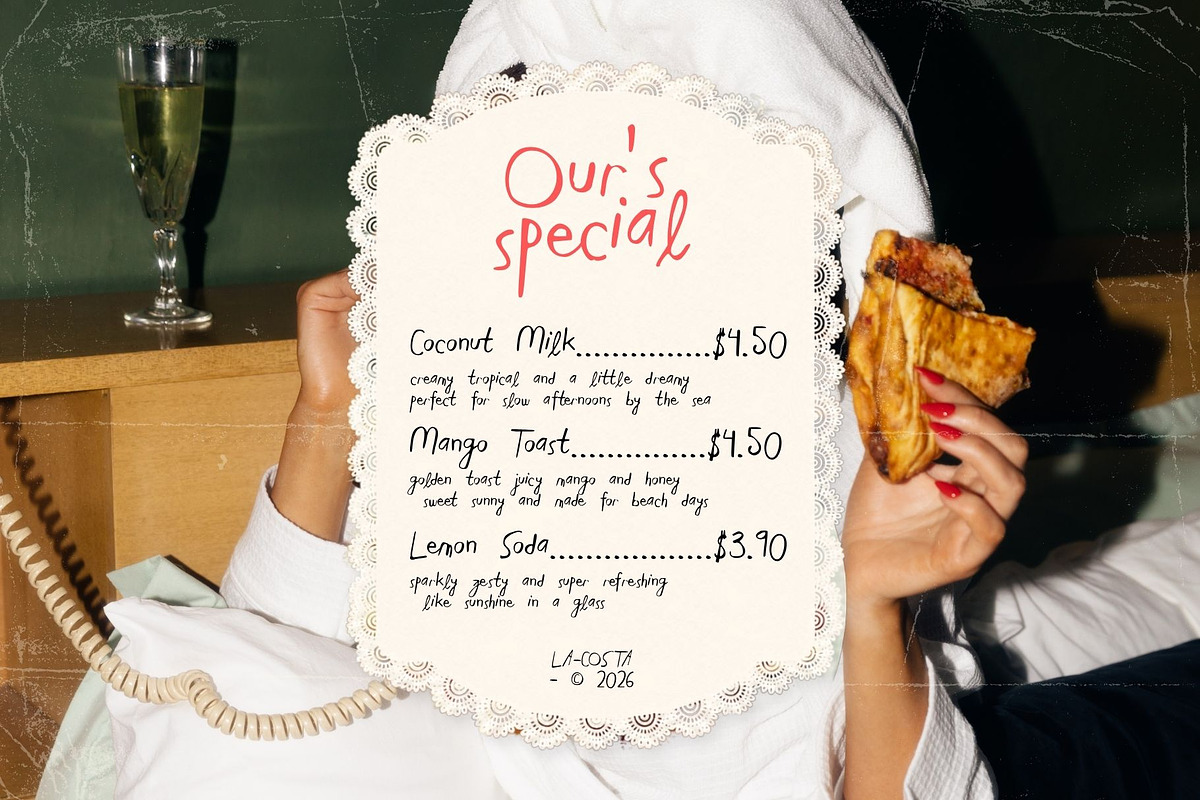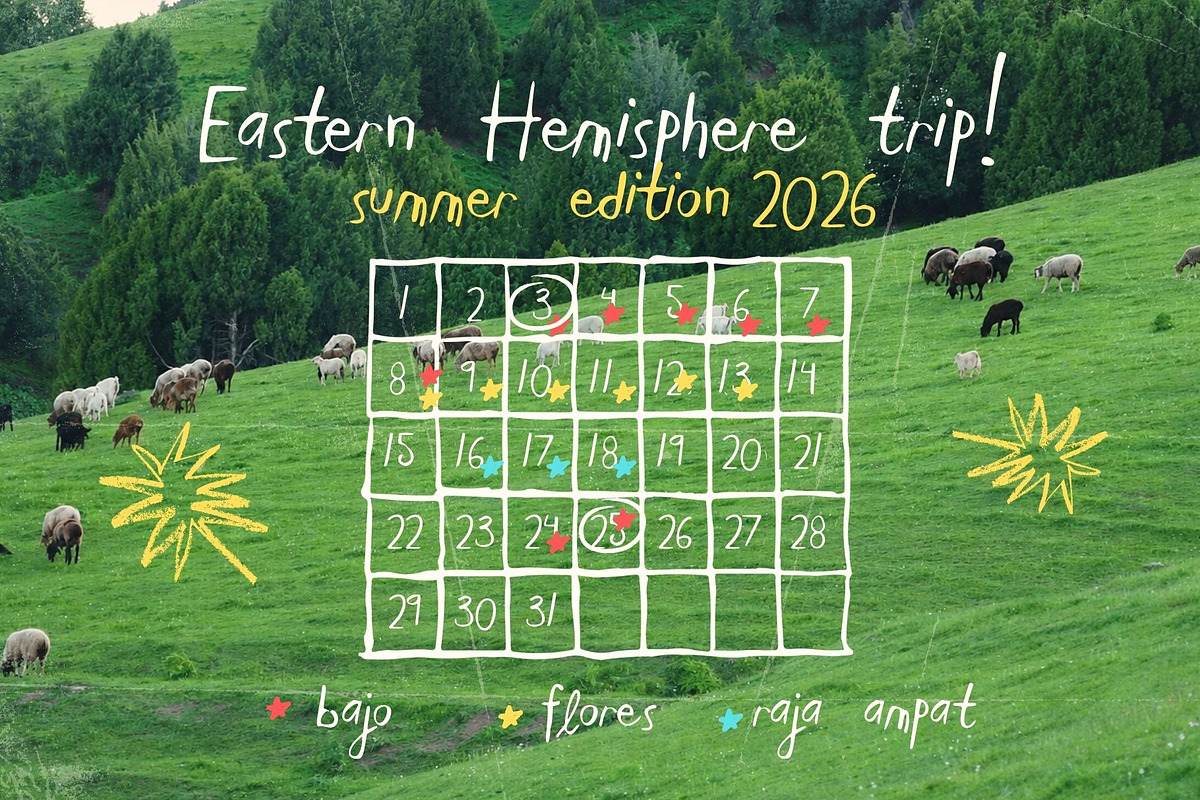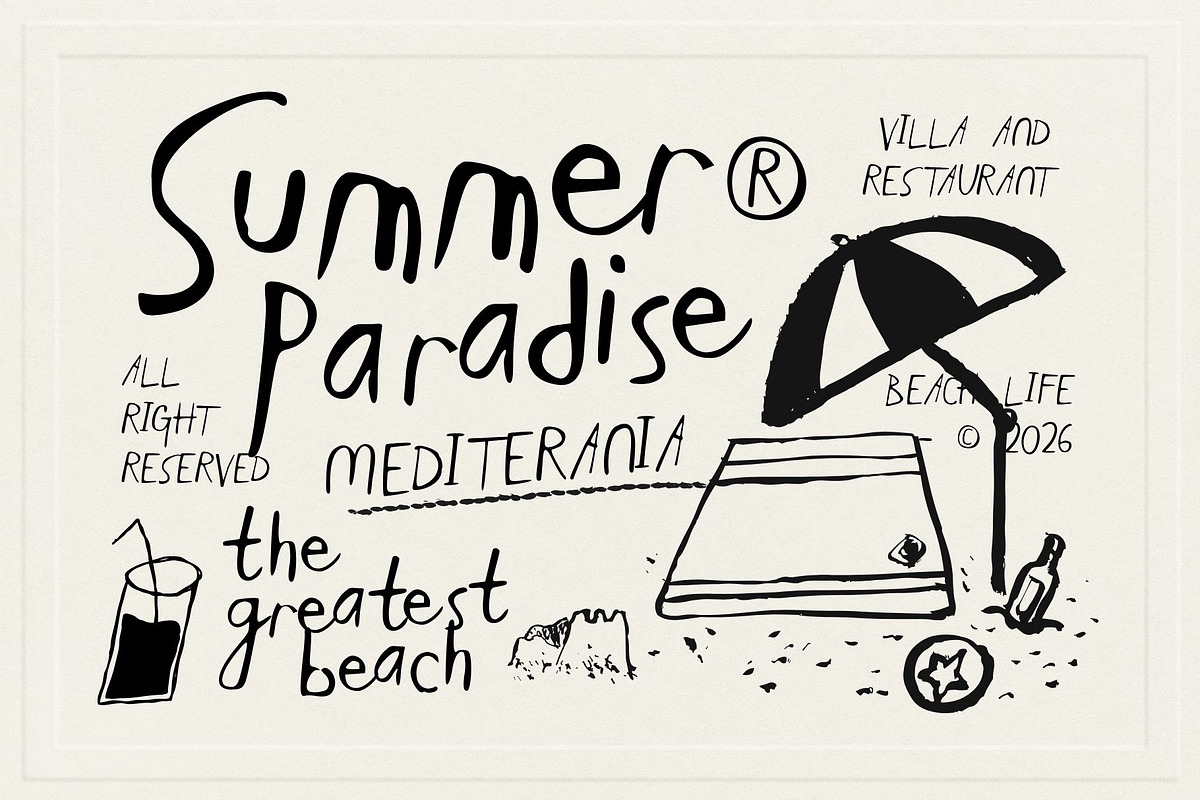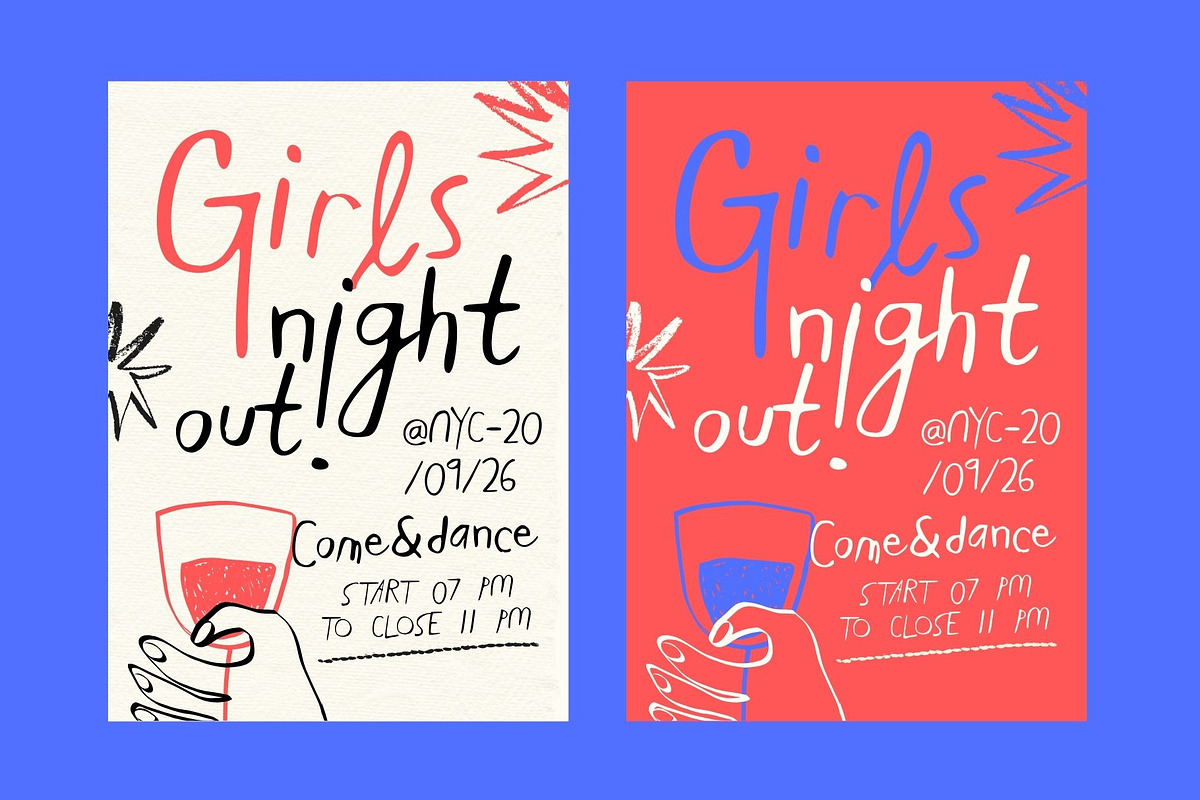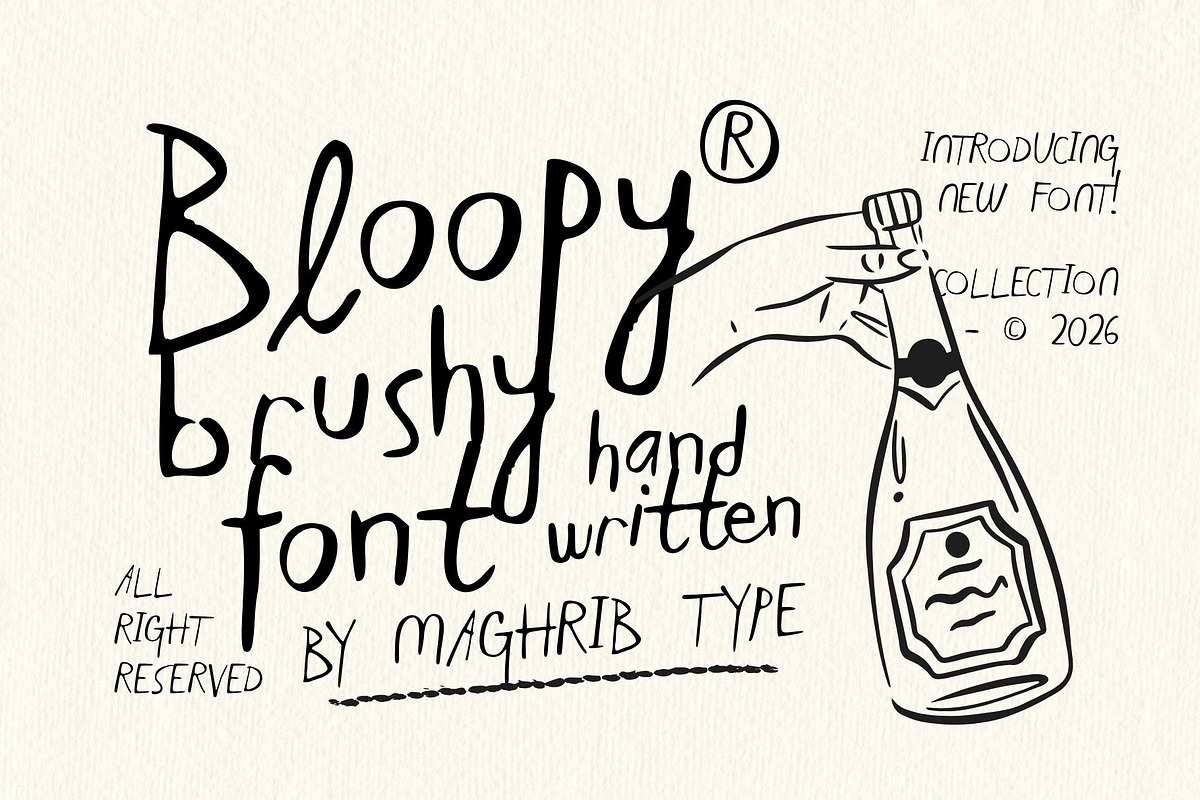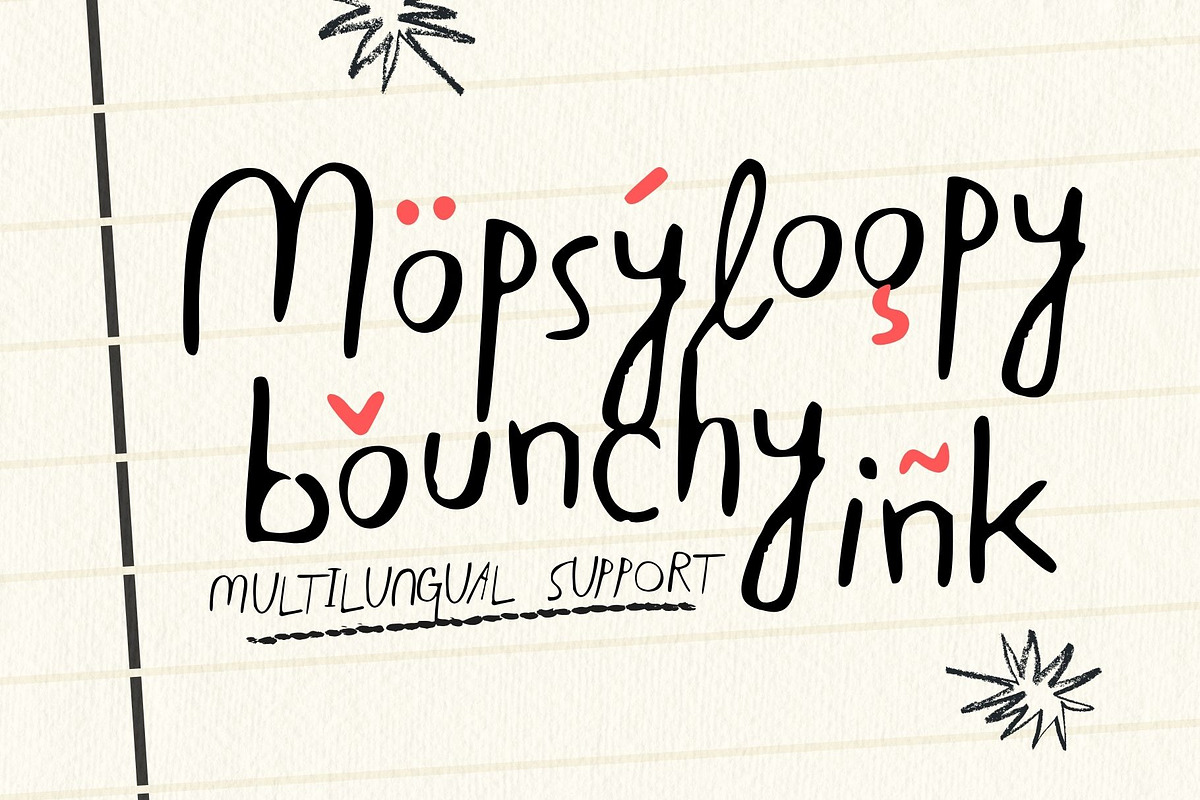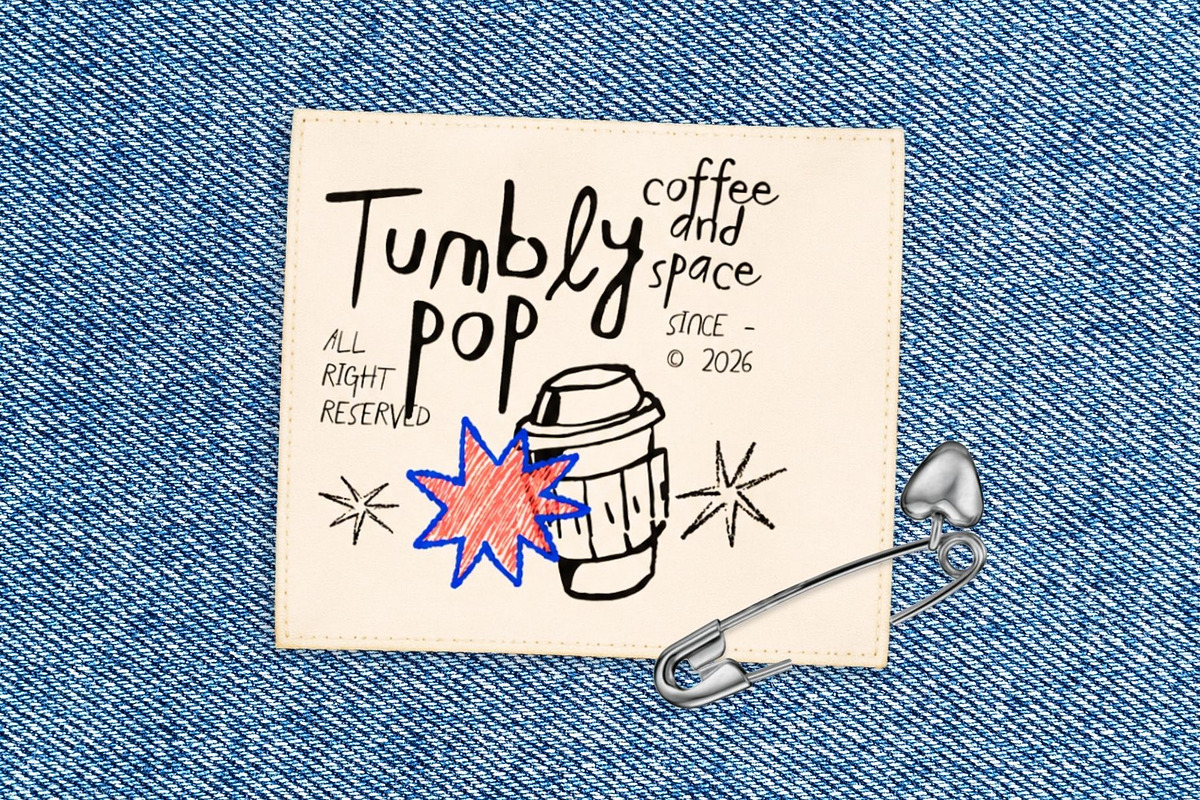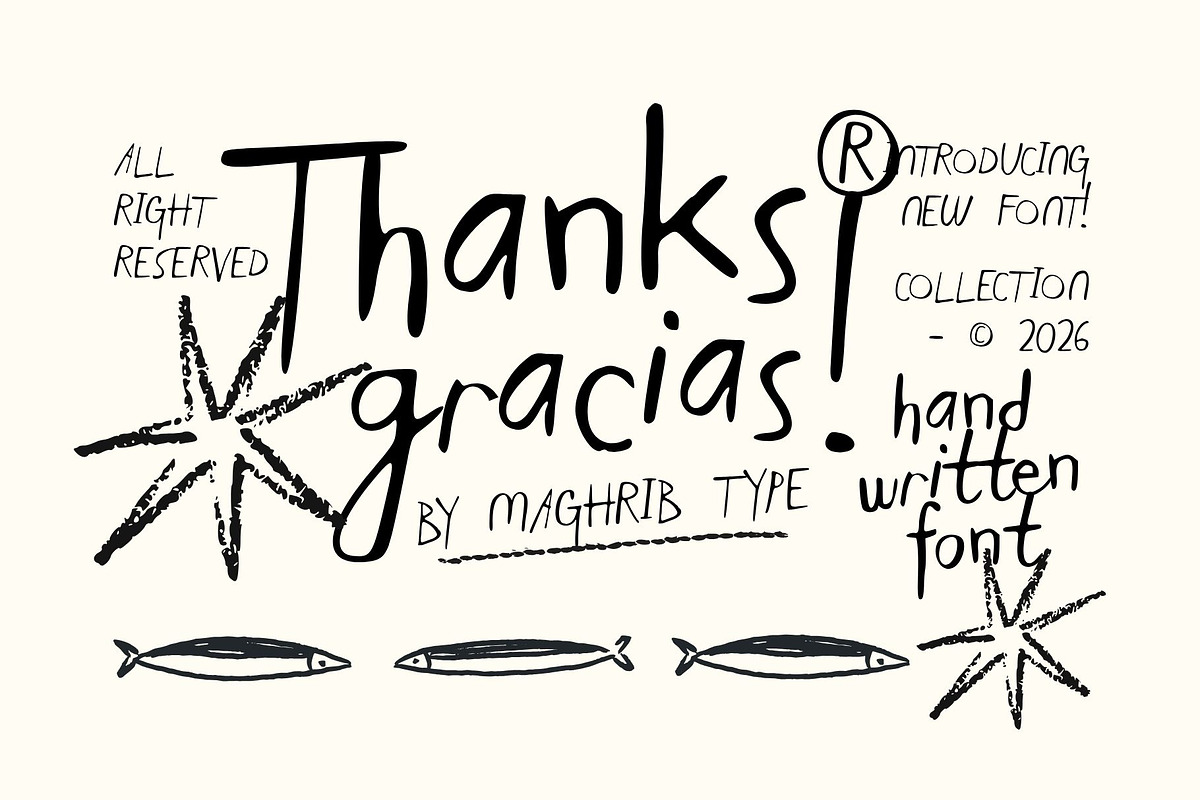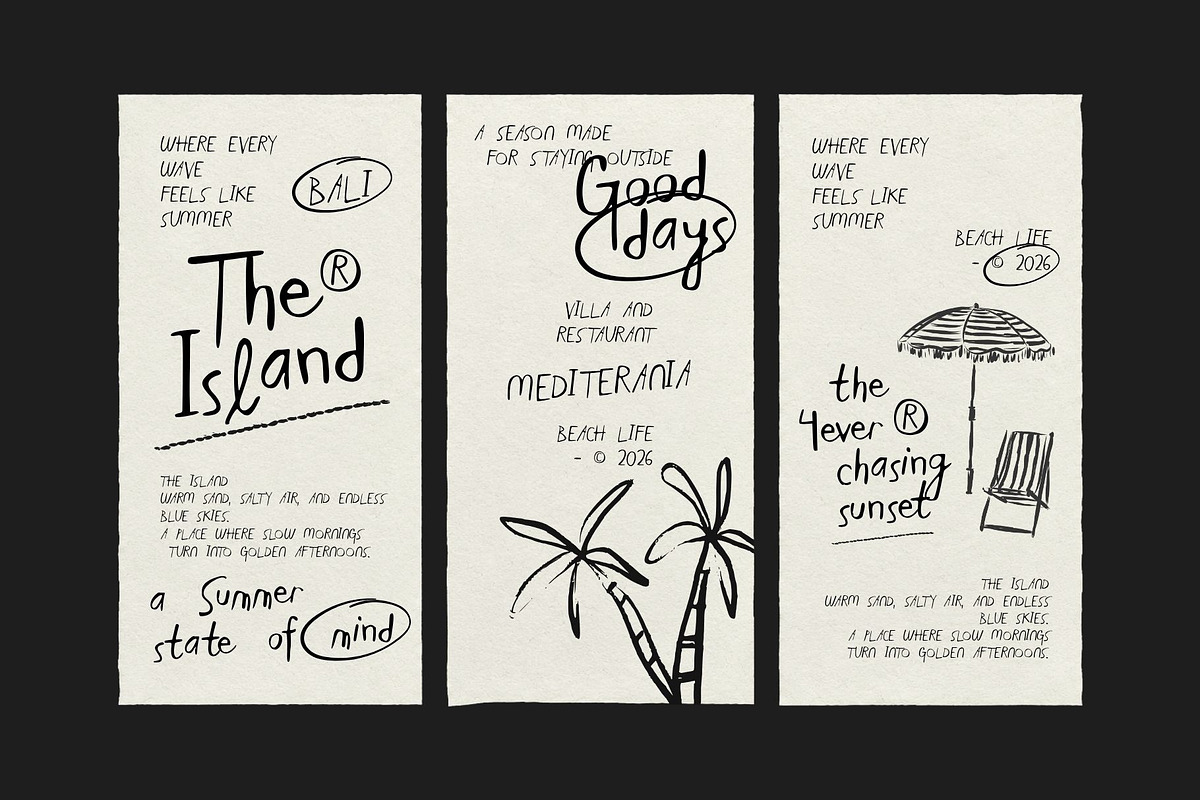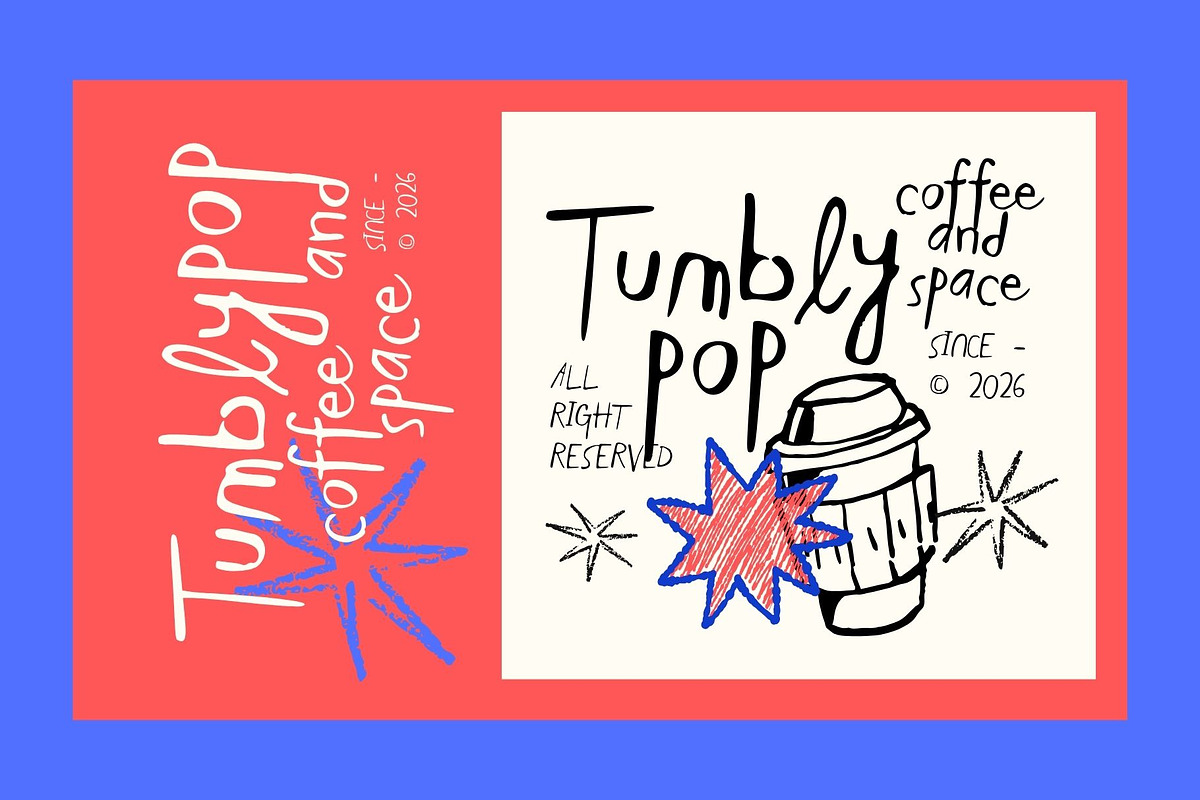
Bloopy Handwritten
Bloopy – Playful Handwritten Display Font
Say hello to Bloopy, a fun and expressive handwritten font made for designs that need a little more personality!
With its quirky shapes, playful rhythm, and naturally imperfect hand-drawn feel, Bloopy brings a casual and cheerful touch to your typography. It feels spontaneous, friendly, and full of character — just like something written straight from the sketchbook.
Bloopy works beautifully for posters, branding, packaging, apparel, invitations, social media graphics, stickers, greeting cards, café designs, kids' projects, and creative advertising.
Whether you're creating a bold headline, a playful logo, or a casual quote, Bloopy is ready to make your words feel more alive.
Logo & Branding
Posters & Flyers
Social Media Content
Apparel & Merchandise
Stickers
Greeting Cards
Invitations
Café & Restaurant Branding
Kids & Children's Designs
Quotes & Typography
Editorial Design
Advertising
Creative Headlines
Personal Projects
Bloopy is made to look fun, imperfect, and effortlessly handwritten — because sometimes your typography doesn't need to be perfect, it just needs personality.